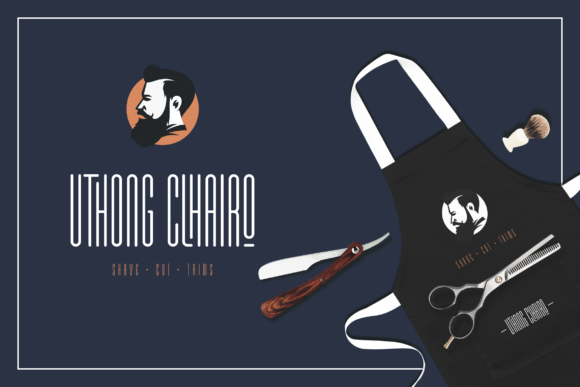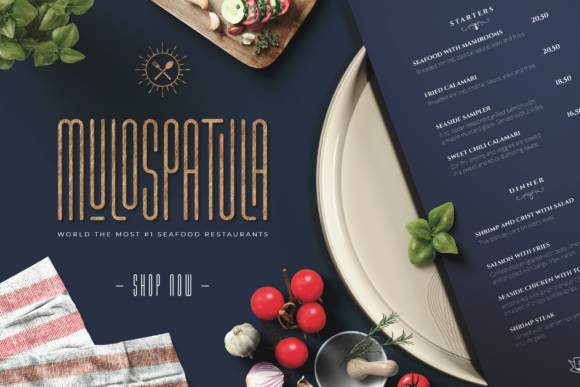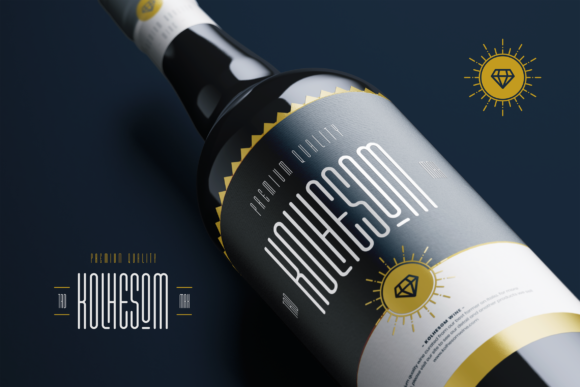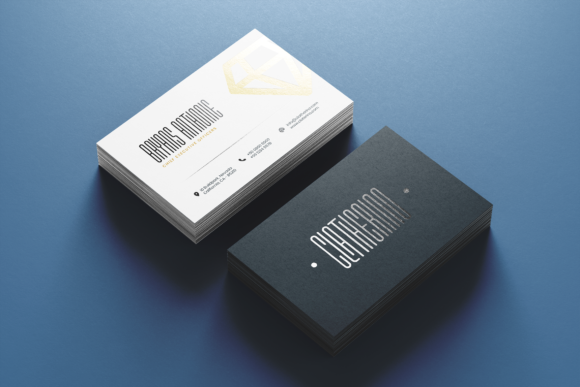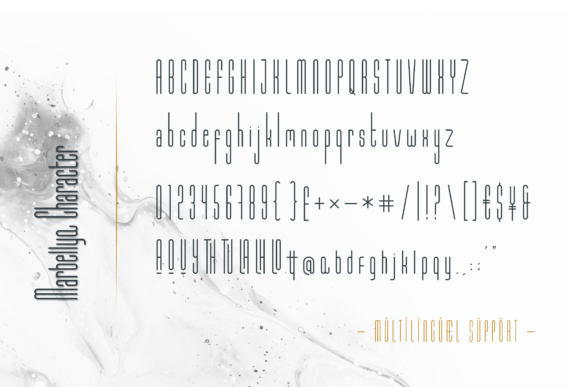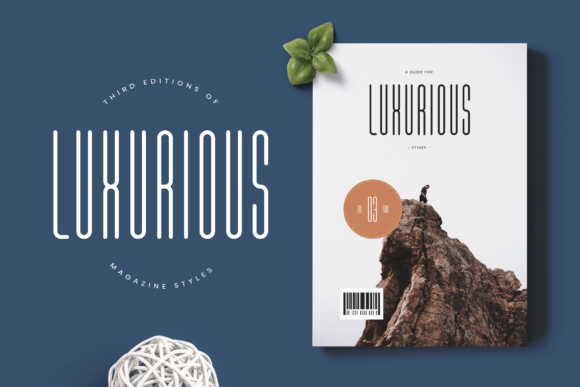
Introduction to Marbellya Font
Marbellya is a simple, yet elegant sans serif font.
Suitable to a wide variety of designs due to its neat and simple style, Marbellya has the potential to become your favorite go-to font, no matter the occasion .